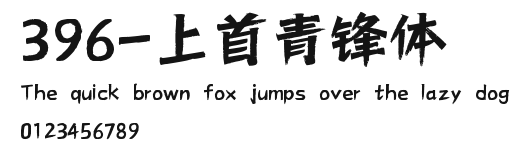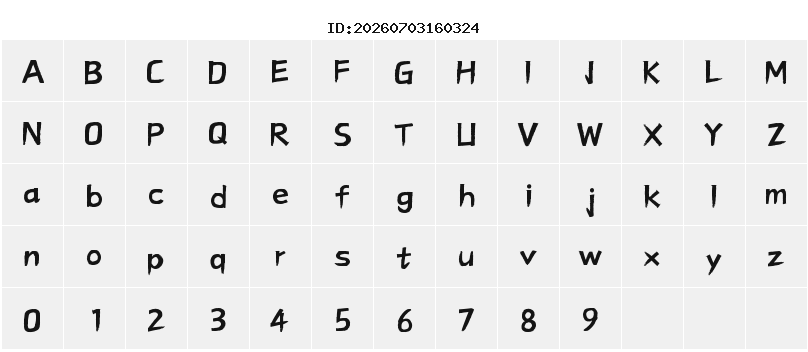
396-上首青锋体 Preview
• Font Name: 396-上首青锋体
• Full Font Name: 396-上首青锋体
• Manufacturer: 上首造字
About 396-上首青锋体.ttf
396-上首青锋体.ttf is a modern, elegant sans-serif font designed for ultimate readability and visual harmony. Perfect for branding, headlines, web design, and print materials.